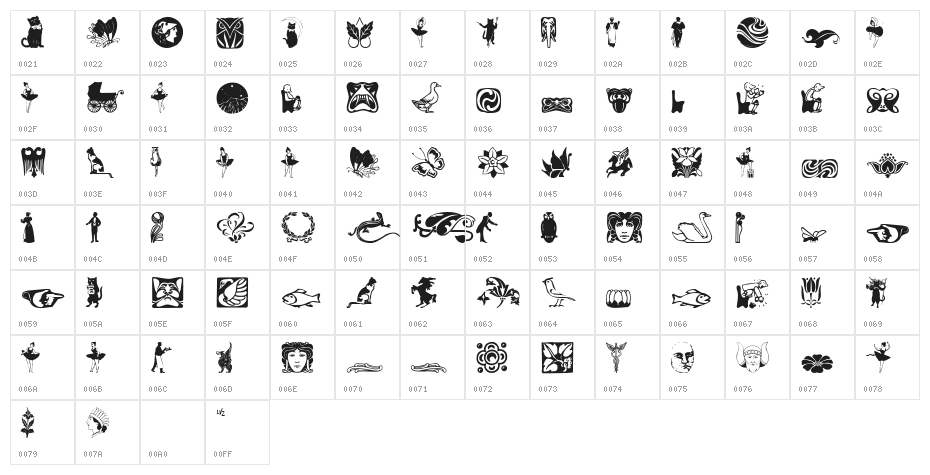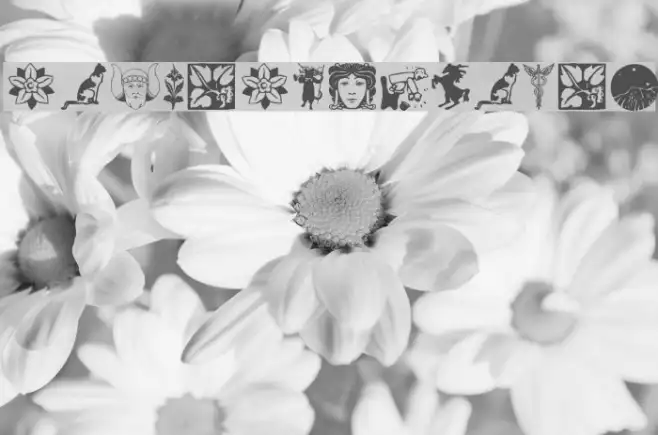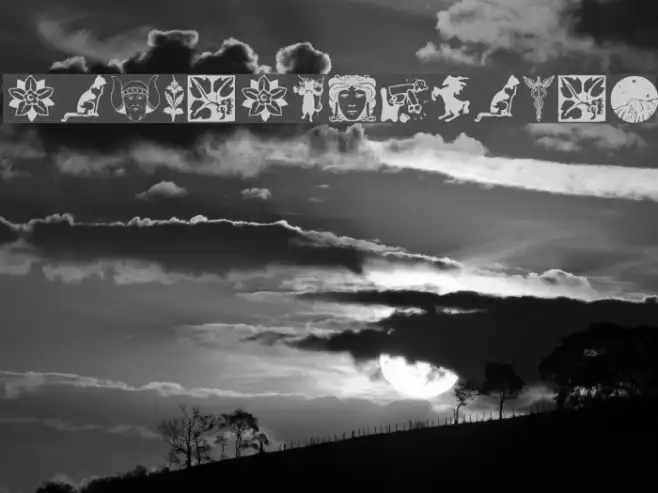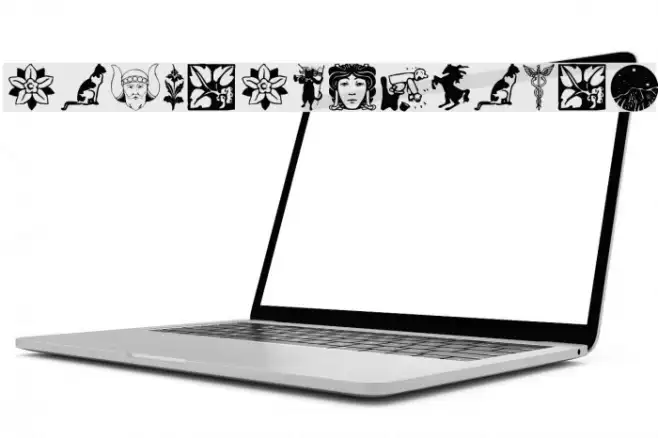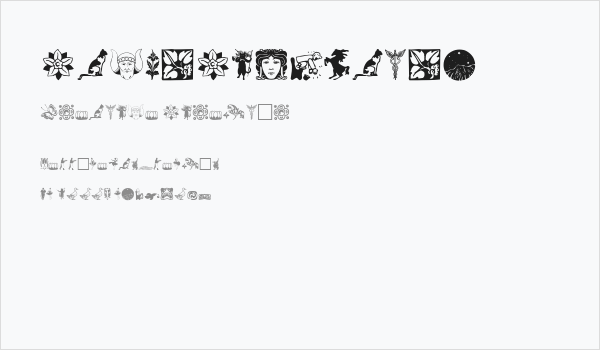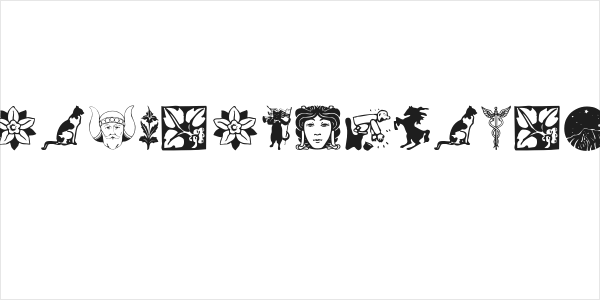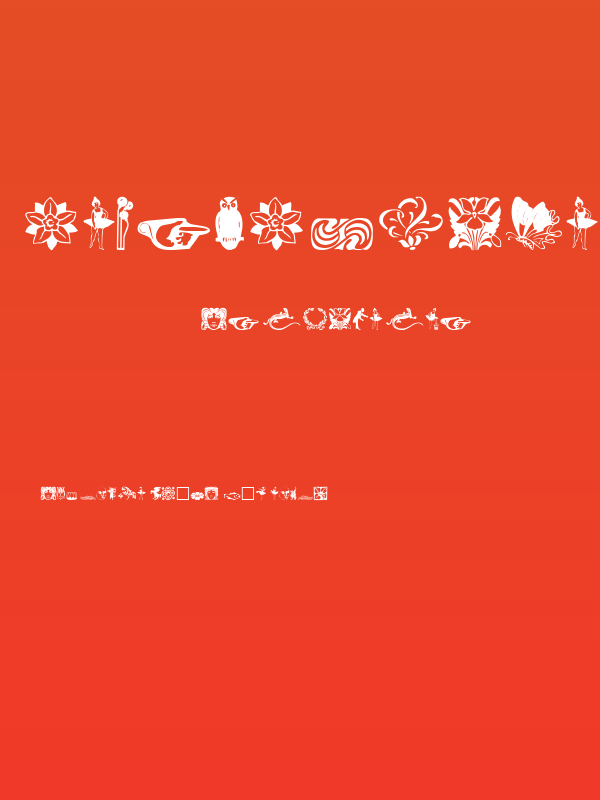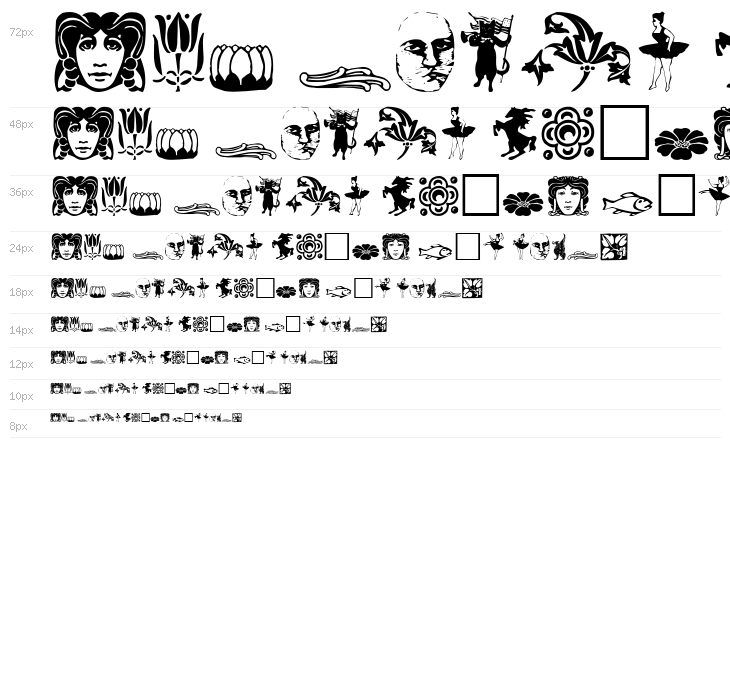
DavysDingbats2 Font
DavysDingbats2 Description
This collection features a diverse array of whimsical and artistic symbols, each with its own unique flair. The designs range from intricate floral patterns and elegant dancers to mythical creatures and abstract shapes. Each symbol is crafted with attention to detail, showcasing a blend of classic and imaginative elements. The style is predominantly decorative, with a playful yet sophisticated aesthetic that can add a touch of creativity to any project. The variety of motifs allows for versatile applications, making it suitable for both modern and vintage-inspired designs.
| Use Case | Logos, Decorative elements, Artistic projects |
| Proposed Projects | Ideal for creative projects such as invitations, greeting cards, posters, and decorative branding elements. |